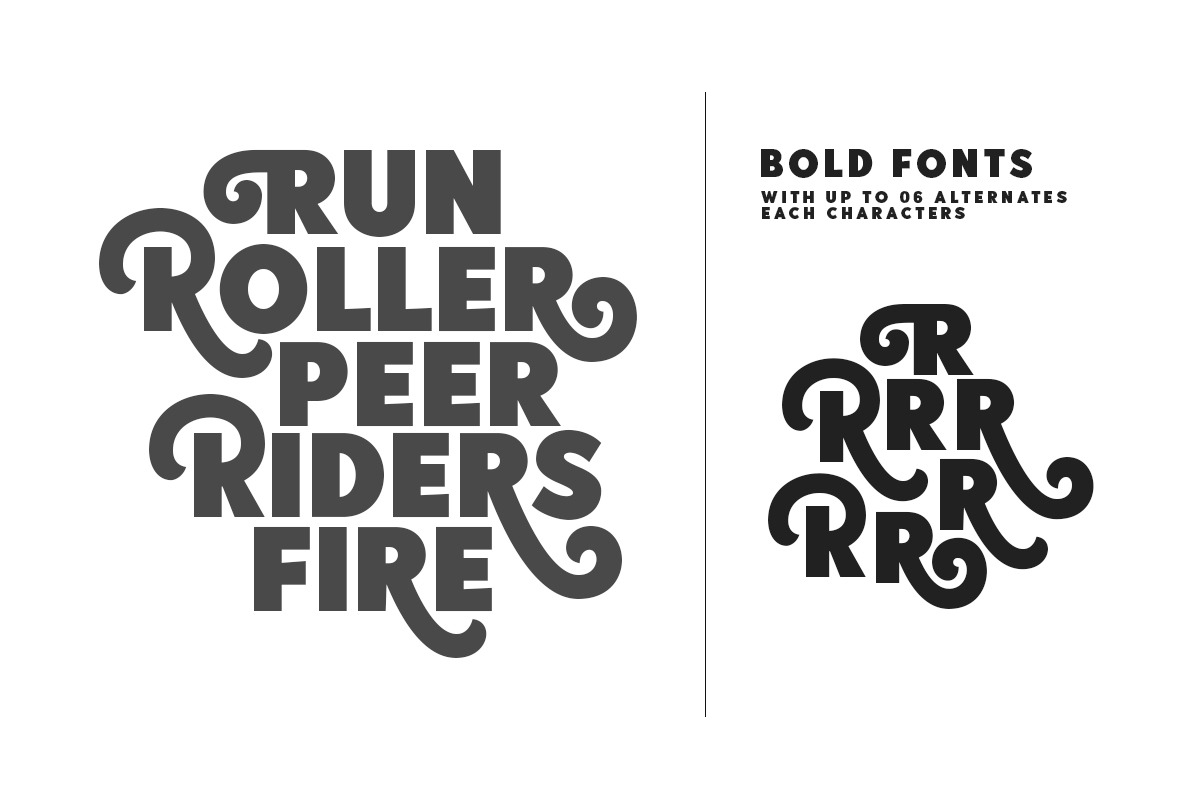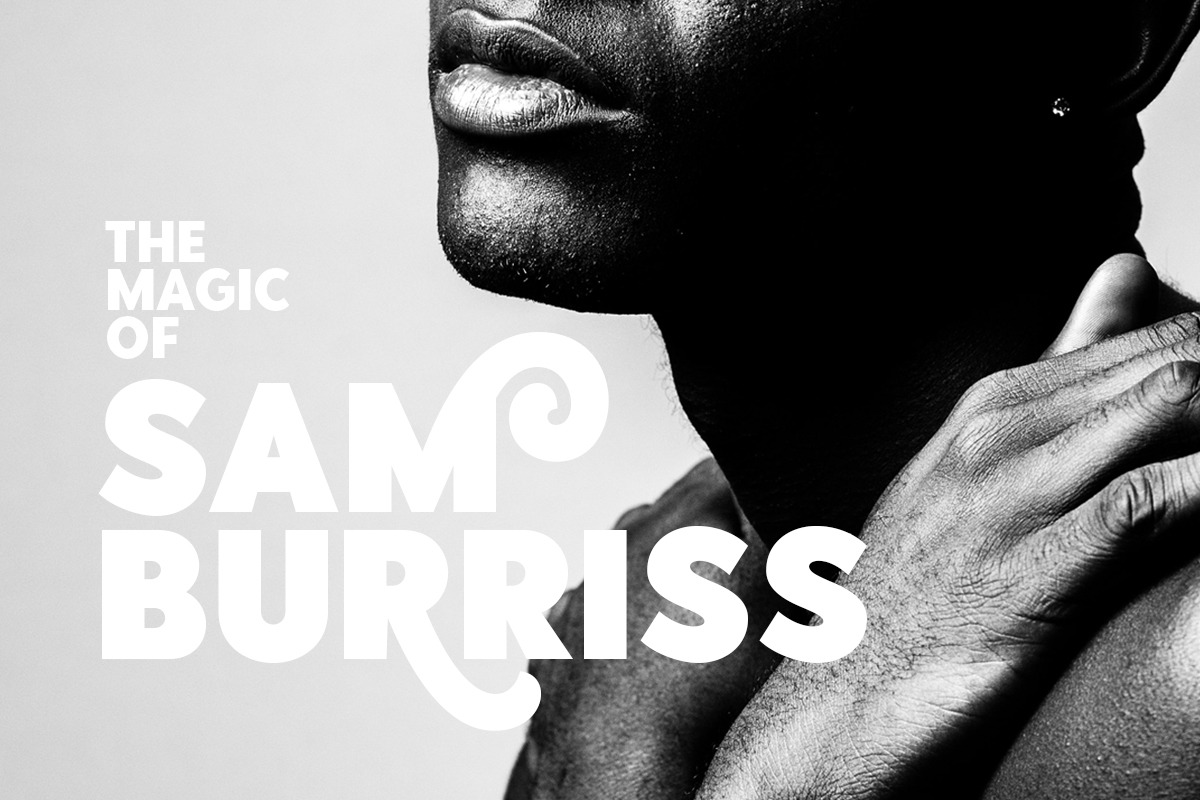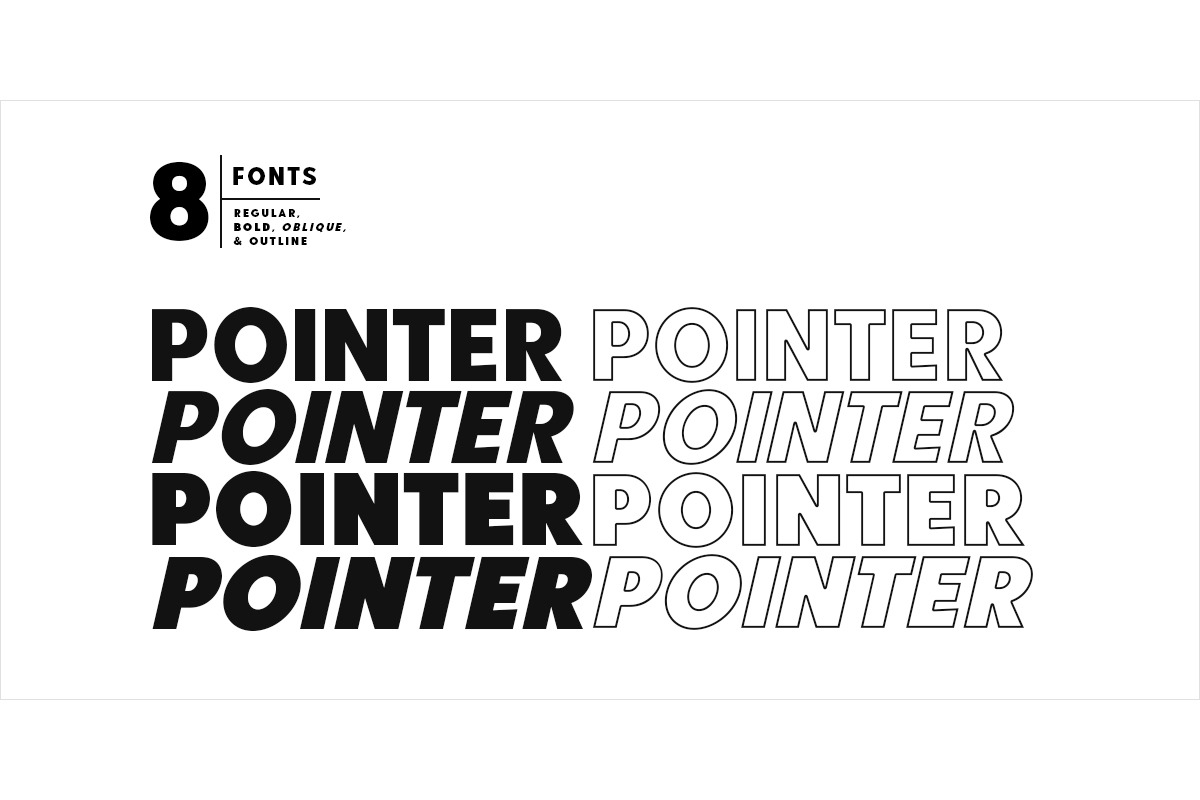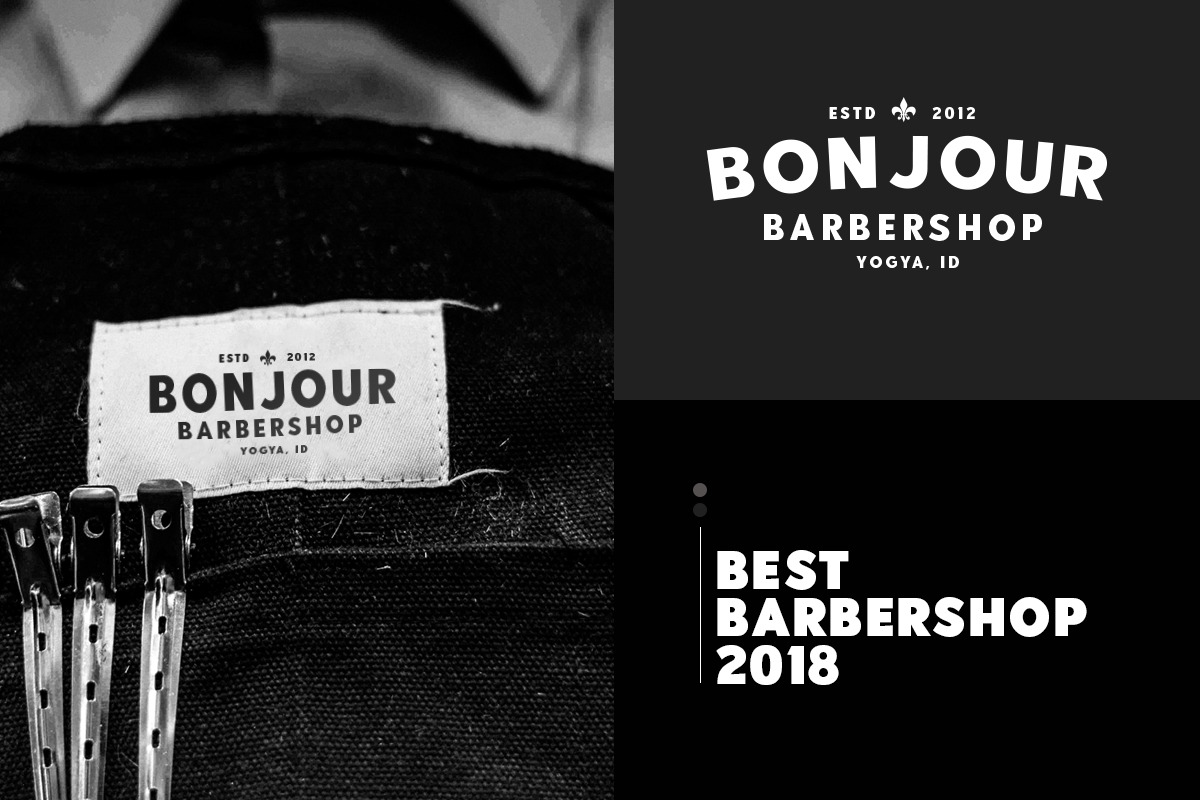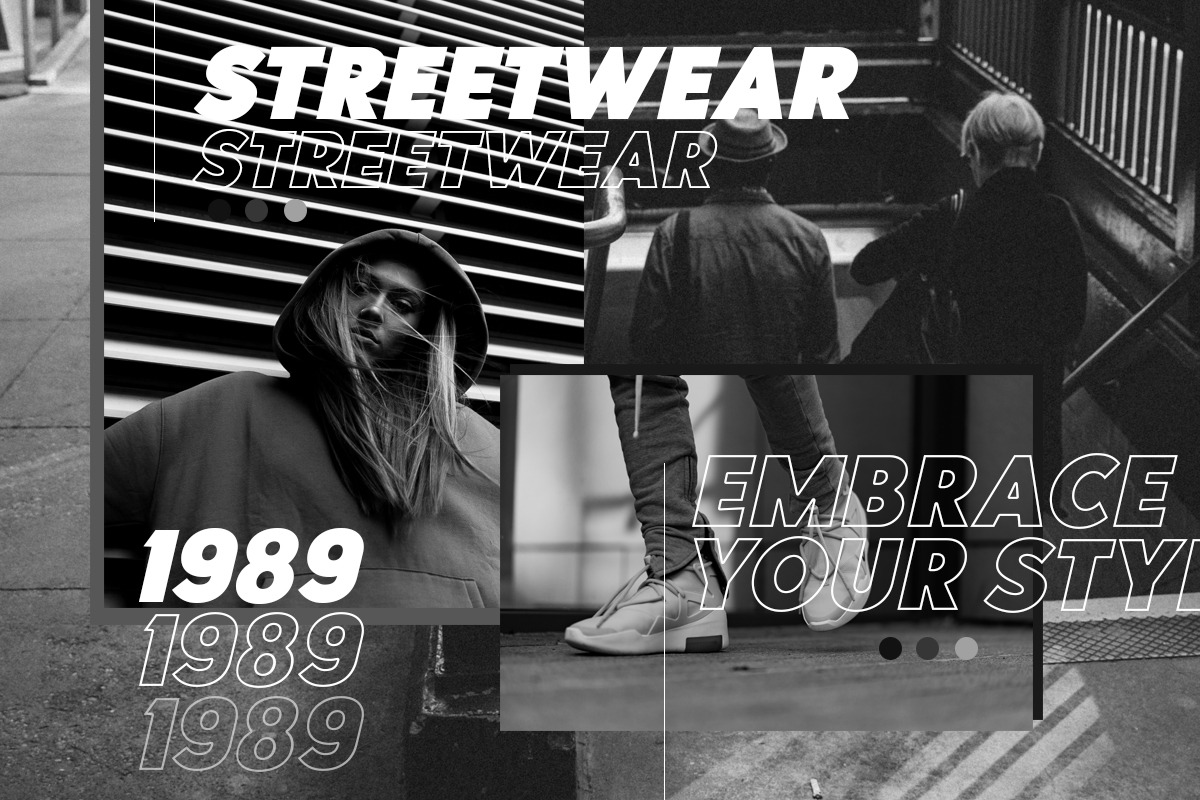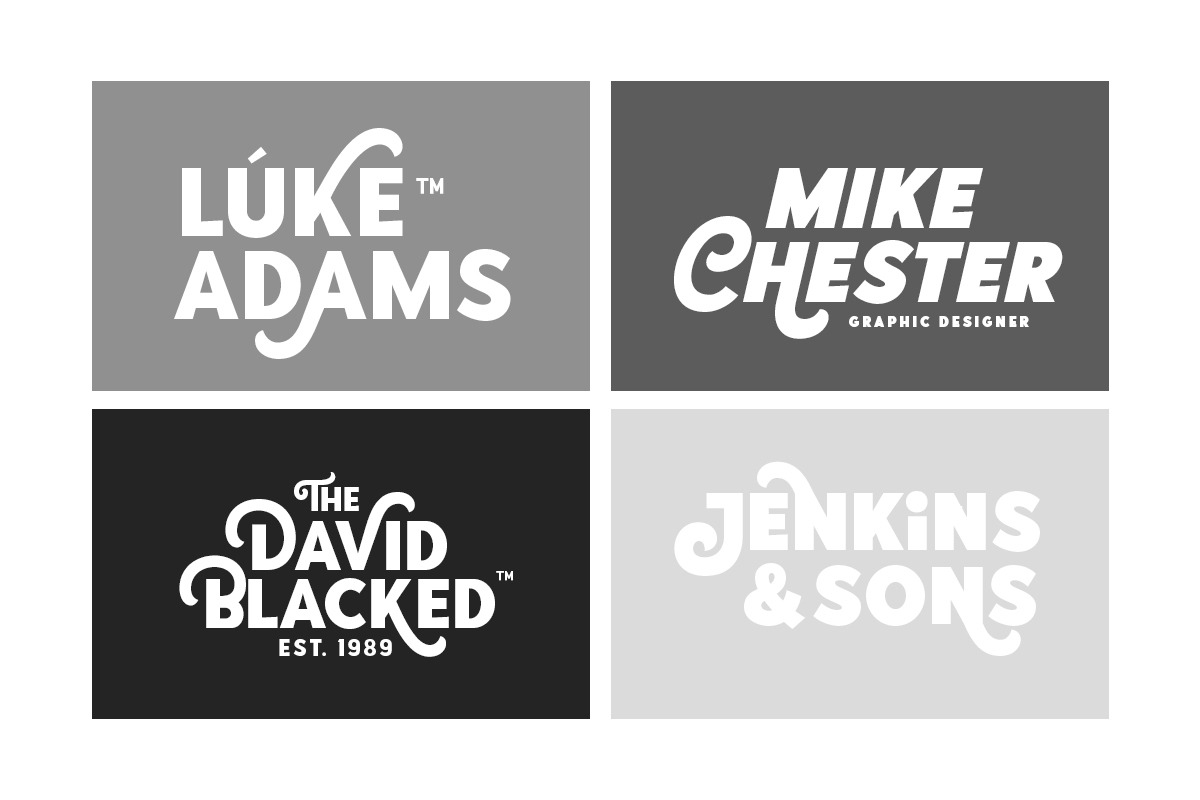
Point Panther (8 BOLD FONTS)
Introducing, A NEW POWERFUL BOLD FONTS WITH ALTERNATES, Point Panther!
Point Panther is a headline font with super bold style that contains up to 6 Alternates each characters! You can make a unique branding with this fonts. this powerful bold fonts also included italic and outline style! This fonts suitable to use for poster, branding, merchandise, and any street art style! Also support multilingual.
Point Panther Regular (Regular, Italic )
Point Panther Bold (Bold, Bold Italic)
Point Panther Outline Regular (Regular, Italic )
Point Panther Outline Bold (Bold, Bold Italic)